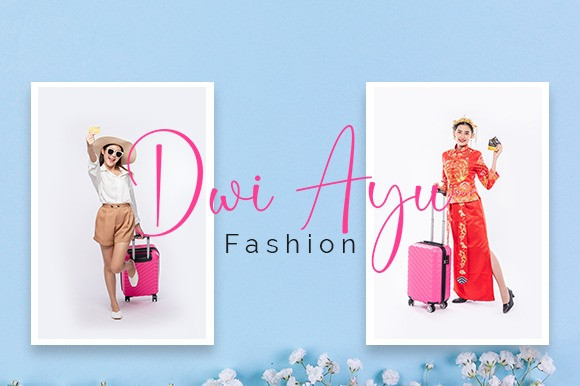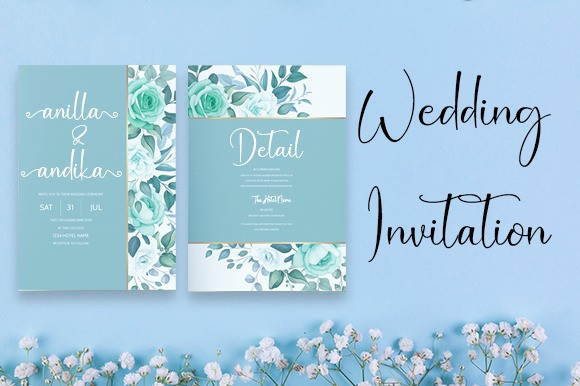
Ayuni Font
Ayuni Calligraphy Font is a casual and friendly script font. Simple and easy to use, this font will be very beautiful if you mix it with your various craft designs.